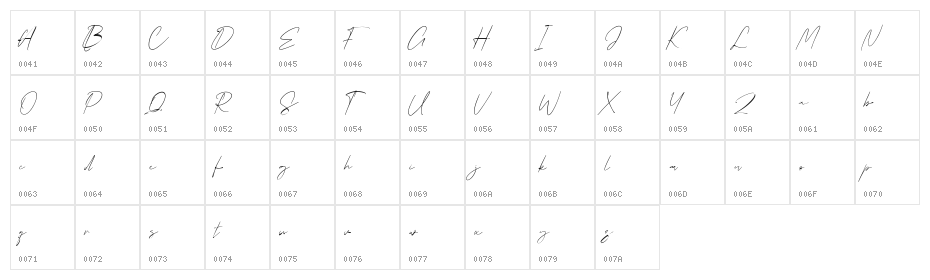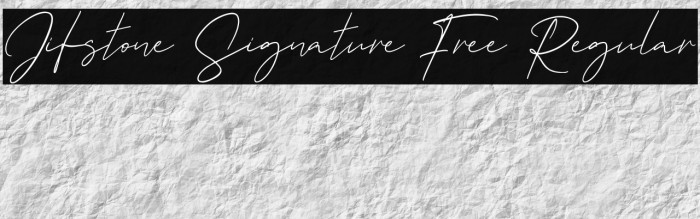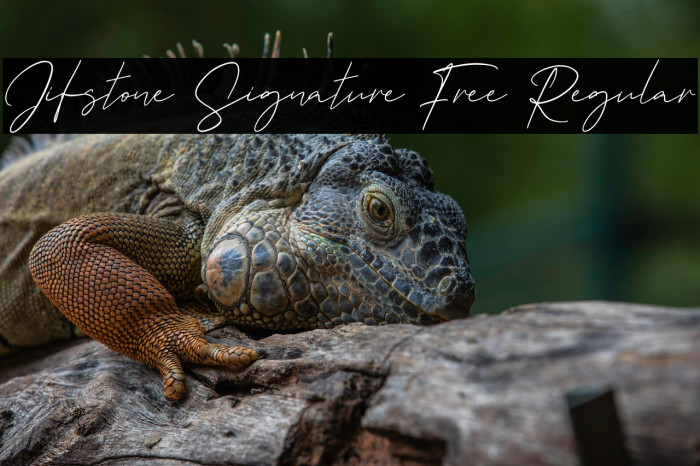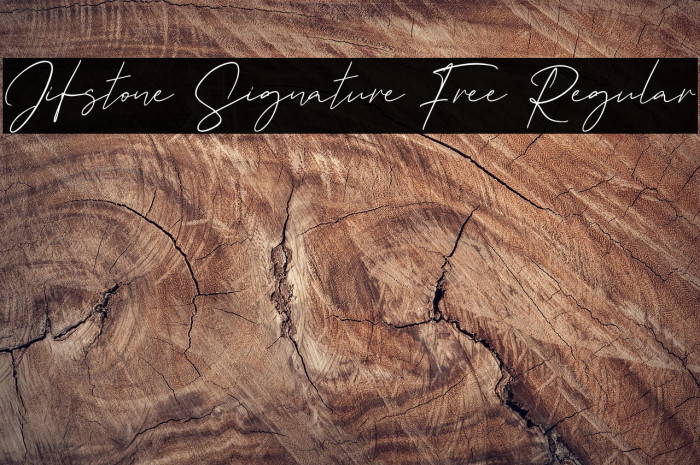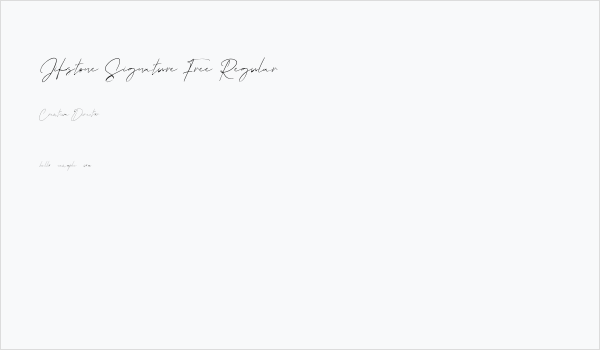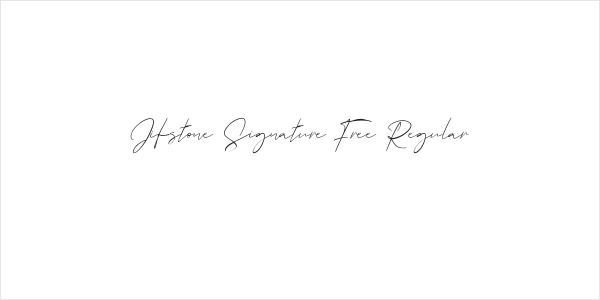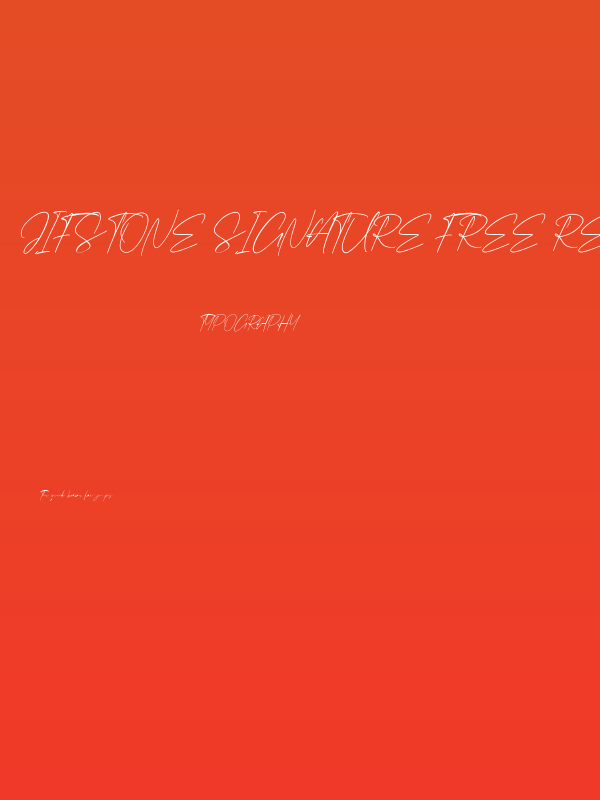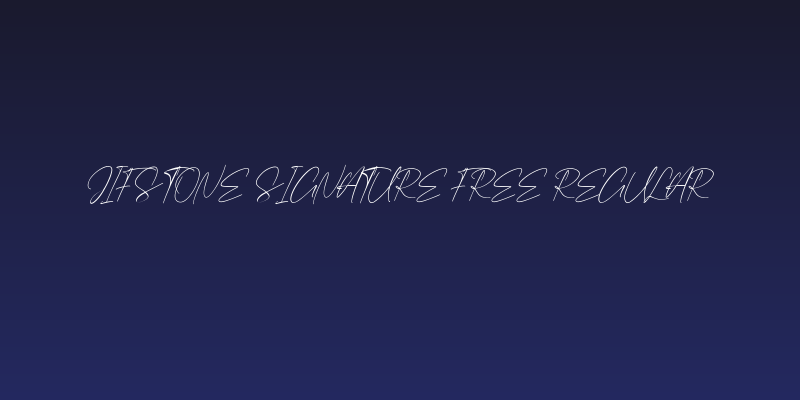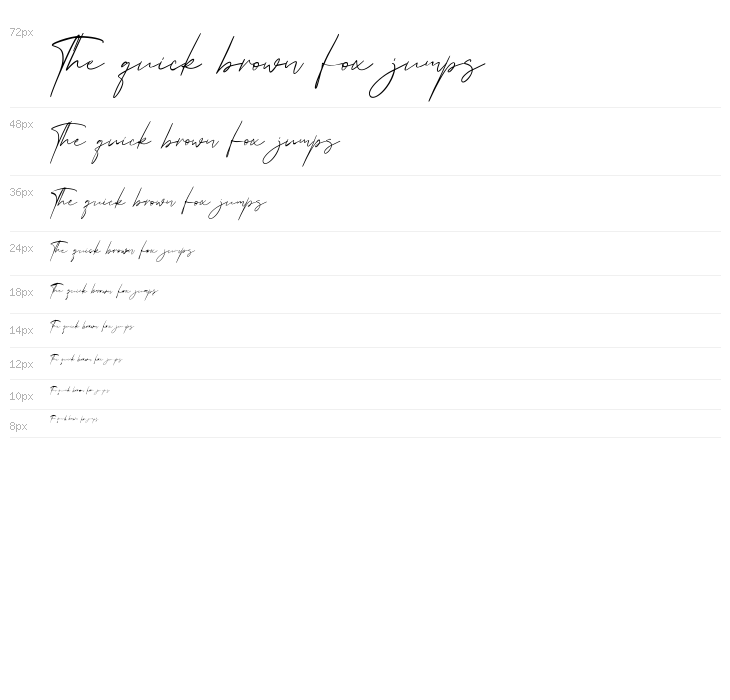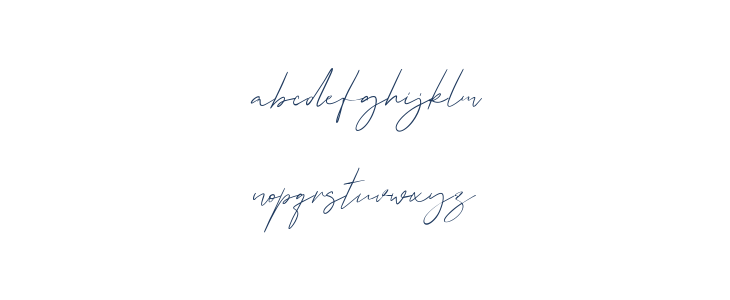
Jifstone Signature Free Regular Font
Jifstone Signature Free Regular Description
This font exudes elegance and sophistication with its flowing, cursive style. The letters are connected in a smooth, continuous manner, reminiscent of a personal signature. The strokes are thin and delicate, giving it a refined and graceful appearance. The uppercase letters are bold and prominent, while the lowercase letters maintain a consistent flow, enhancing readability. This font is perfect for adding a touch of class and personality to any design project.
| Proposed Projects | Ideal for wedding invitations, personal branding, logos, and elegant stationery. |